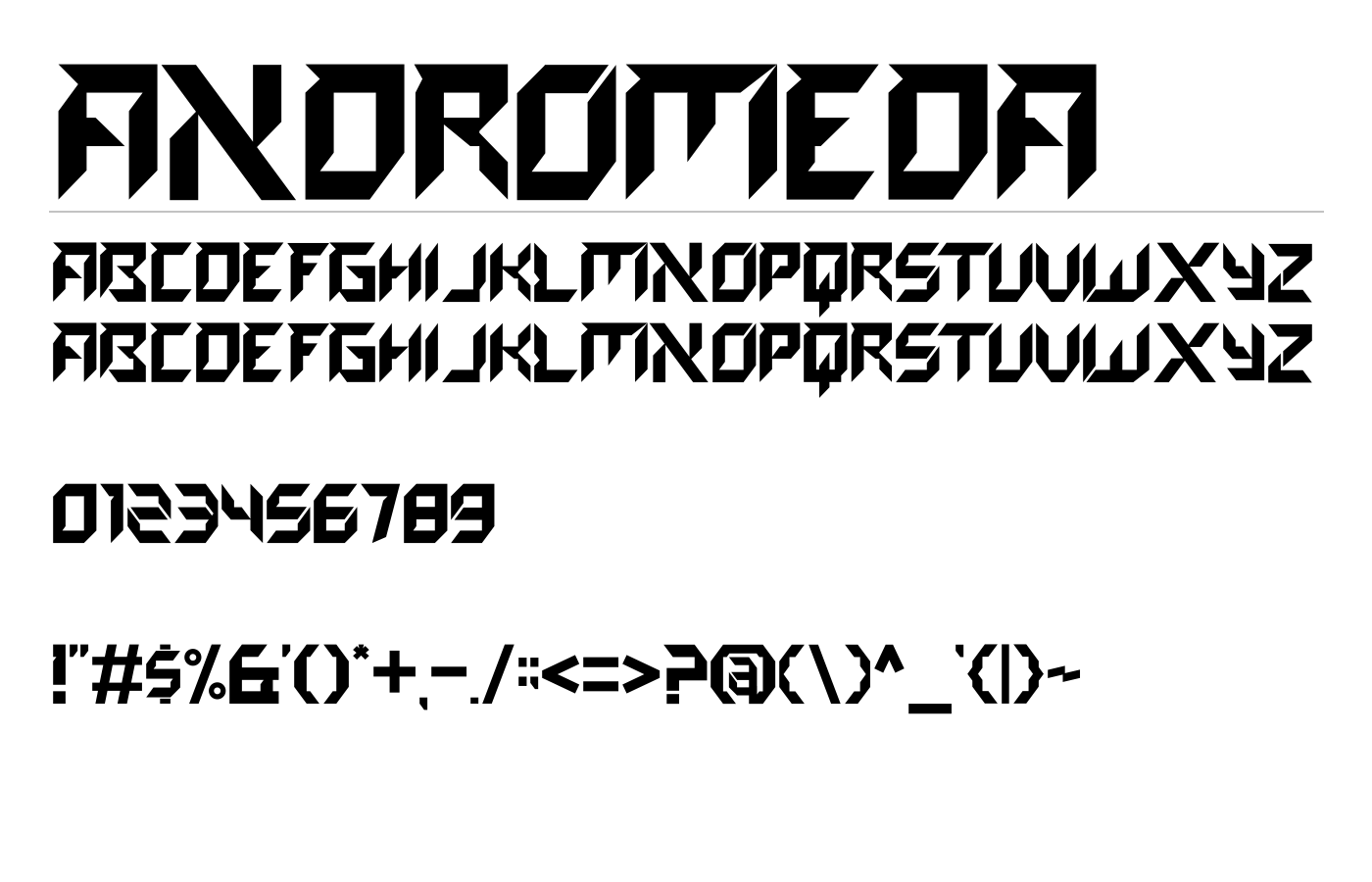
Andromeda is a bold, geometric sans serif font with sharp angles and a futuristic, techno vibe. Its heavy weight and condensed letterforms make it eye-catching and impactful, perfect for logos, posters, and headlines that need a strong, modern statement. This font works best in designs aiming for a sci-fi or edgy aesthetic, lending a dynamic and powerful personality to any project.
Andromeda Font
About Andromeda Font